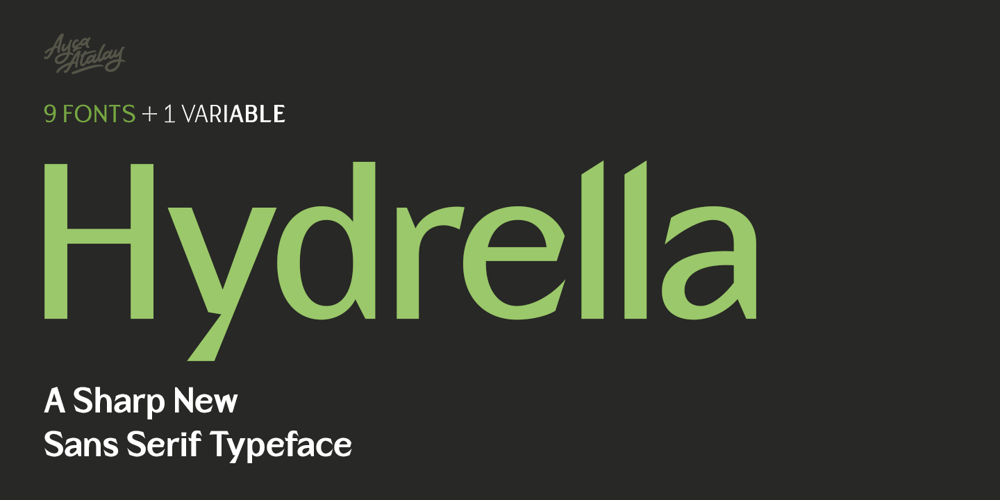
Hydrella Font Family was designed by Ayça Atalay and published by Ayca Atalay. Hydrella contains 10 styles and family package options. Hydrella is a modern sans serif with sharp, unique features and moderately high contrast. Its easily distinguishable attributes provide just enough of a fresh new look without overpowering the overall design.Available in 9 weights, Hydrella works well as both a display typeface and in smaller sizes.